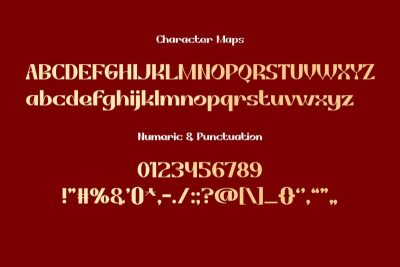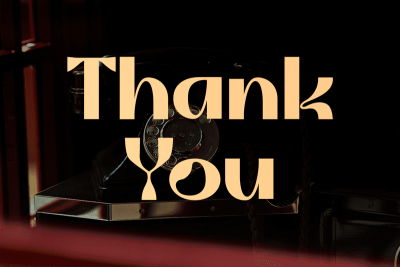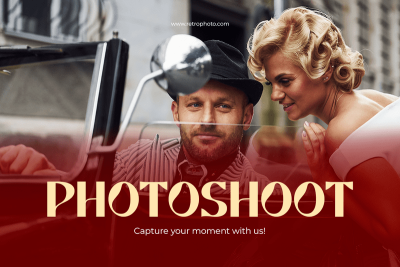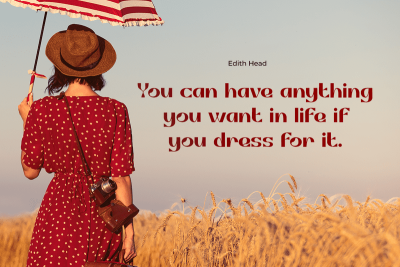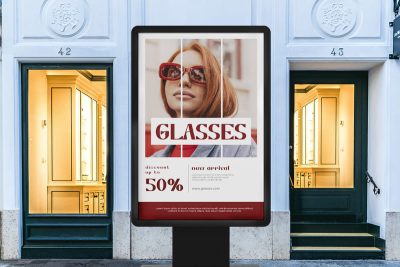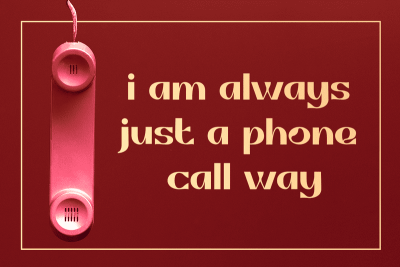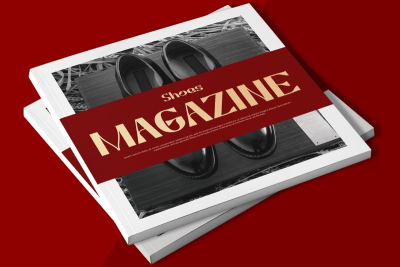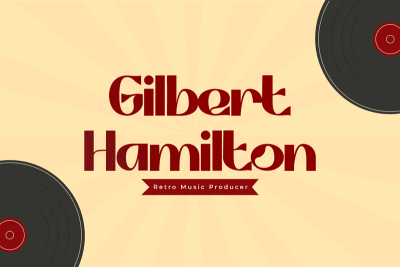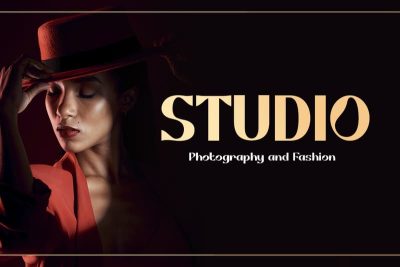
Instagram Font Glance is the perfect choice for modern creatives seeking a chic and nostalgic touch for their designs. Inspired by retro aesthetics but crafted with contemporary sophistication, Glance blends bold shapes and refined curves. Therefore, this unique balance between vintage charm and modern style makes it ideal for grabbing attention on social media, advertisements, or high-fashion branding.
Glanceโs striking design ensures every letter stands out with personality. Furthermore, itโs perfect for headlines, logos, and promotional content. The elegant serif strokes and subtle curves create a visual experience full of luxury and timeless appeal. Designed for impact, this font works well on Instagram posts, stories, and print media like posters, magazines, and packaging.
Beyond its aesthetic appeal, Glance offers versatility in its use. For instance, the fontโs design ensures readability even at smaller sizes, making it suitable for captions or taglines. Additionally, its retro-inspired details evoke a sense of nostalgia, allowing it to connect with audiences across different age groups. Moreover, Glance is available in multiple weights, giving users the flexibility to experiment with various design compositions, from bold statements to subtle accents.
Instagram Font Glance Who Is It For?
Instagram Font Glance suits creatives, influencers, and brands looking to elevate their style. Specifically, itโs especially great for the fashion, beauty, and lifestyle industries, offering a bold yet refined aesthetic. As a result, social media creators and designers can craft scroll-stopping visuals that connect with modern audiences.
Entrepreneurs launching luxury brands, event planners designing bespoke invitations, and agencies creating high-end ads will love Glance. Its timeless design ensures it can be used for both digital and traditional media, adapting seamlessly to different platforms and formats. In addition, content creators aiming to establish a strong and cohesive visual identity will find Glance indispensable.
For those in the wedding industry, Glance is perfect for creating elegant invitations, menus, and signage that leave a lasting impression. Similarly, interior designers and boutique owners can use this font for branding materials, ensuring a cohesive and stylish look across their print and online presence. Whether youโre creating mood boards, packaging, or seasonal campaigns, this font delivers the versatility and charm needed to stand out. Furthermore, its ability to balance aesthetics with functionality makes it a must-have for professionals in various creative fields.